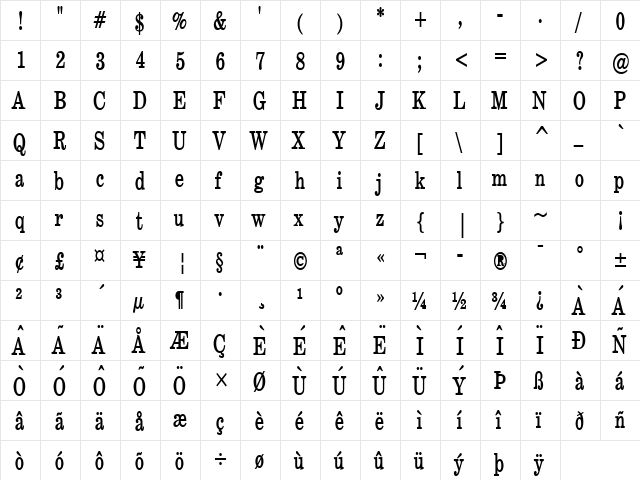
Annual Thin Bold
Design Context for Annual Thin Typeface
Annual Thin is a composed and adaptable typeface that performs quietly and consistently across a wide range of design contexts. Its bold stroke weight gives it real presence on the page.